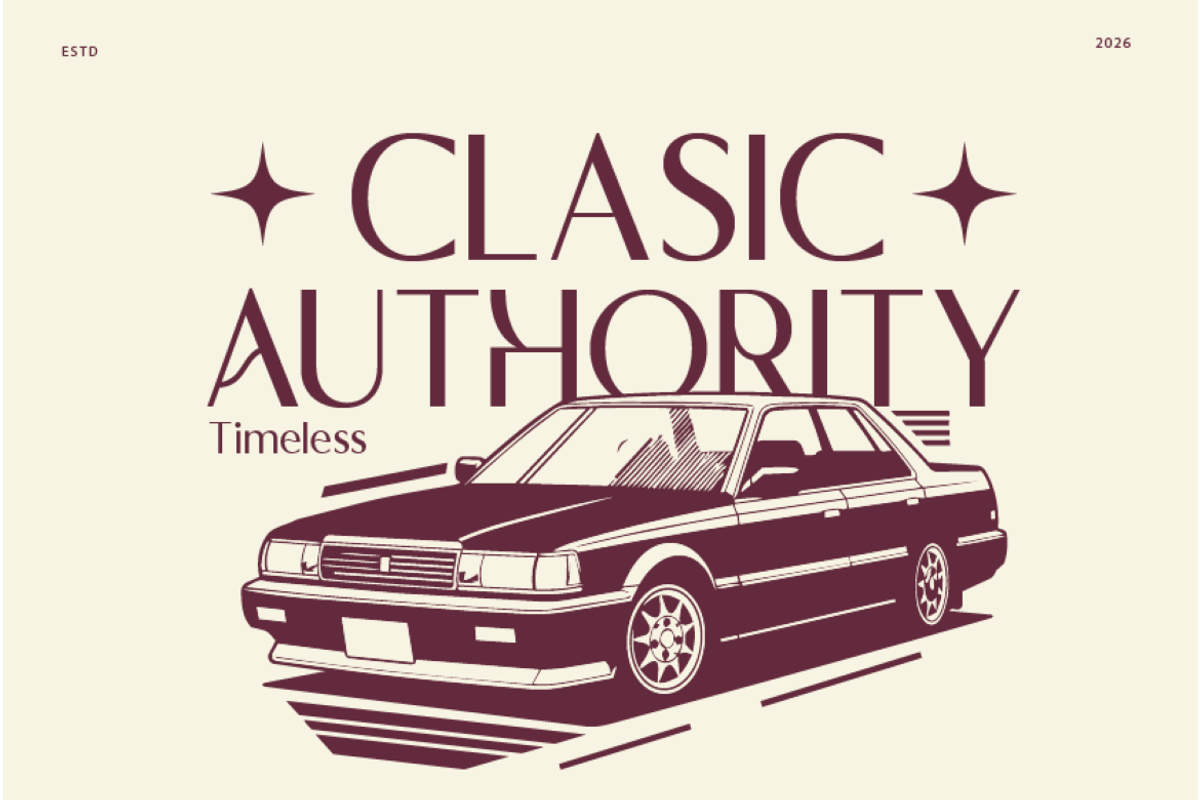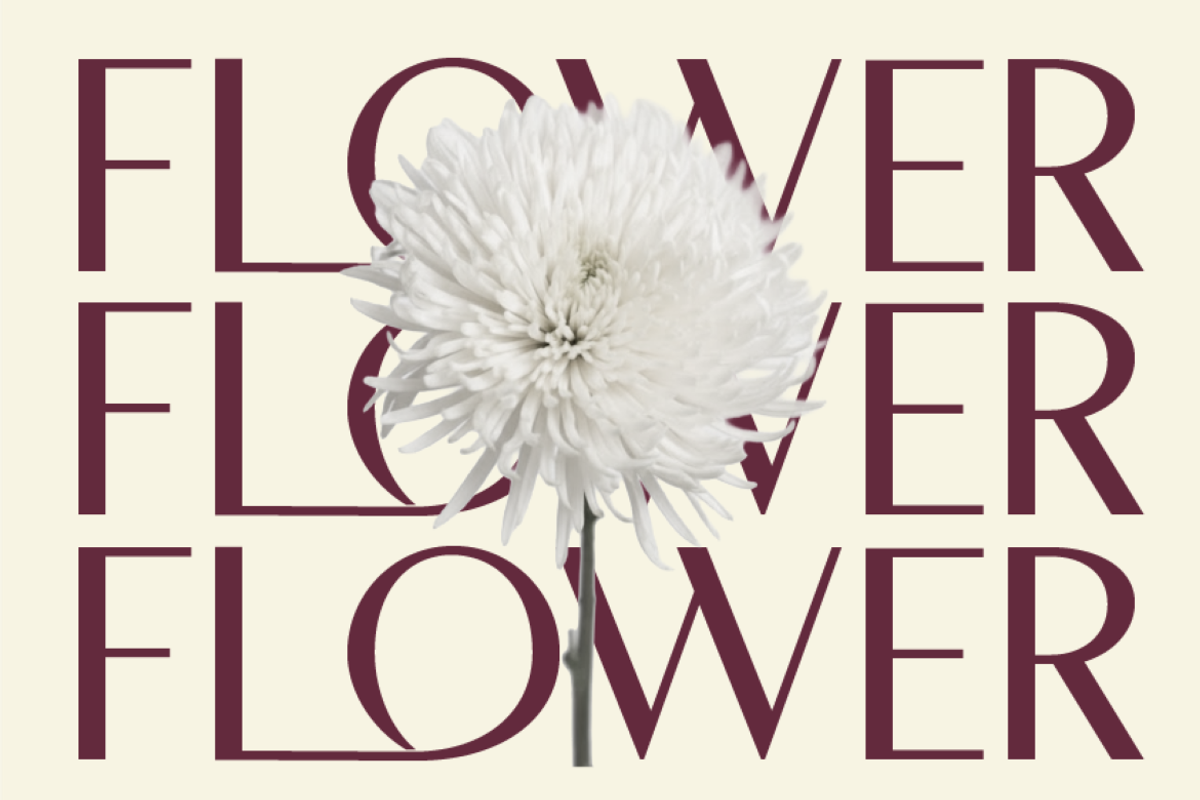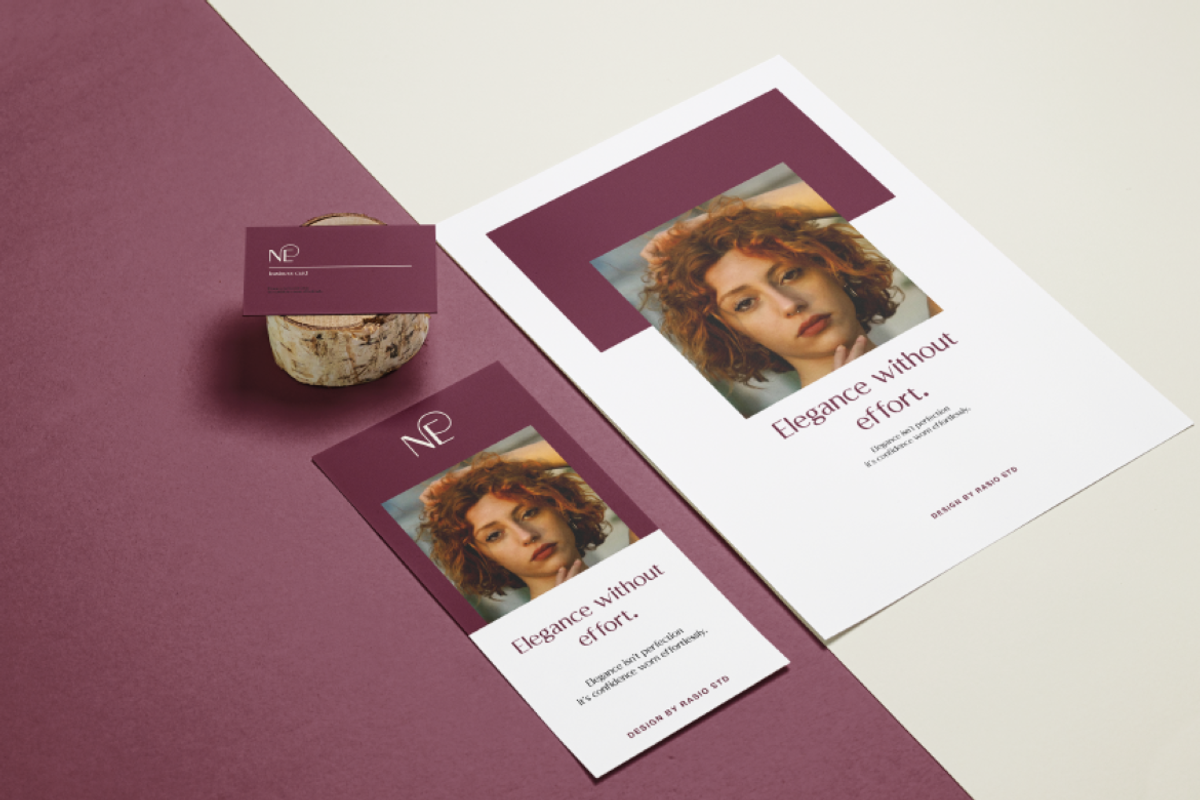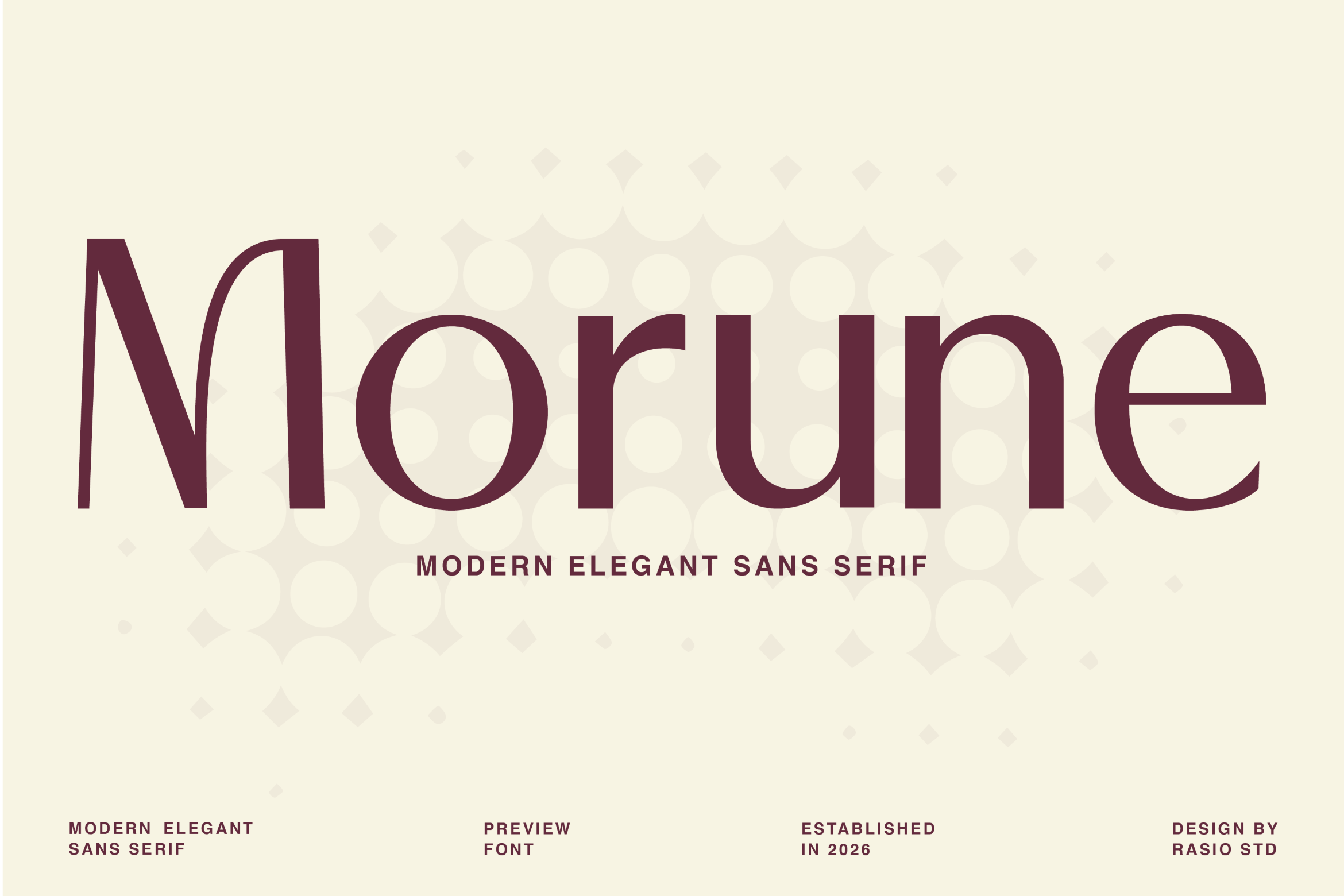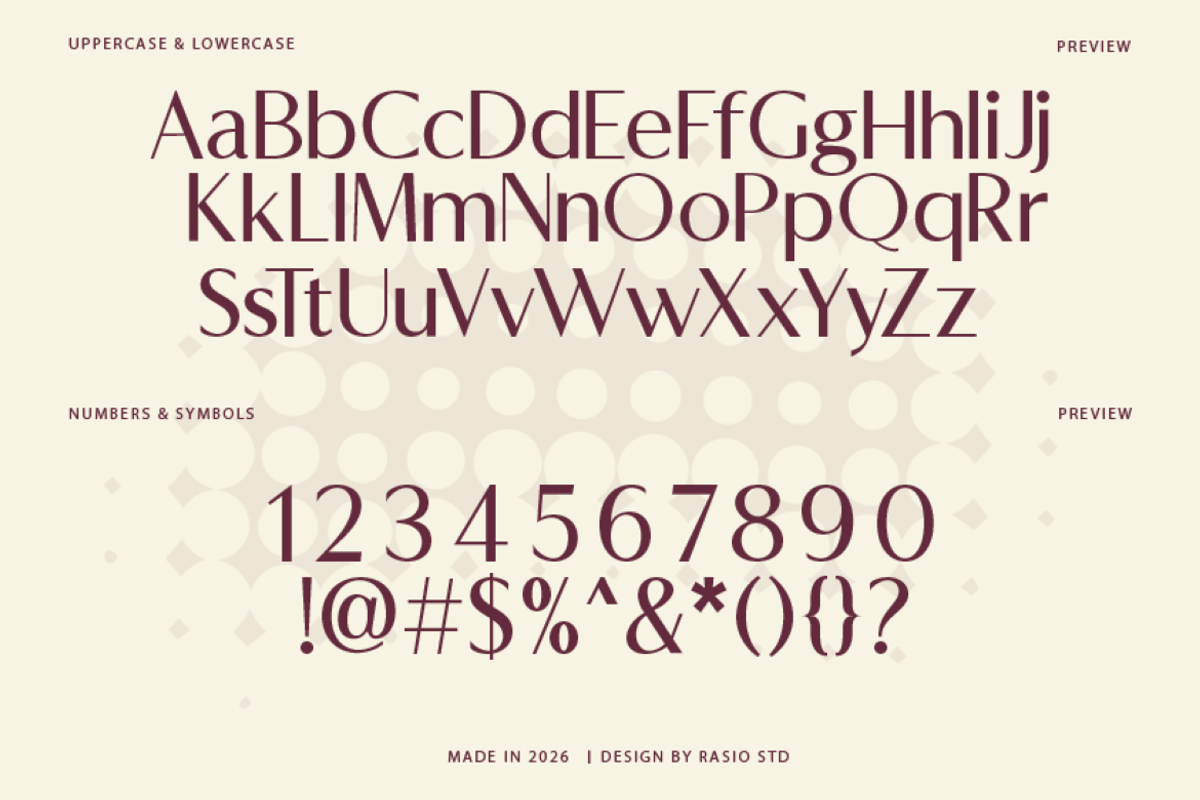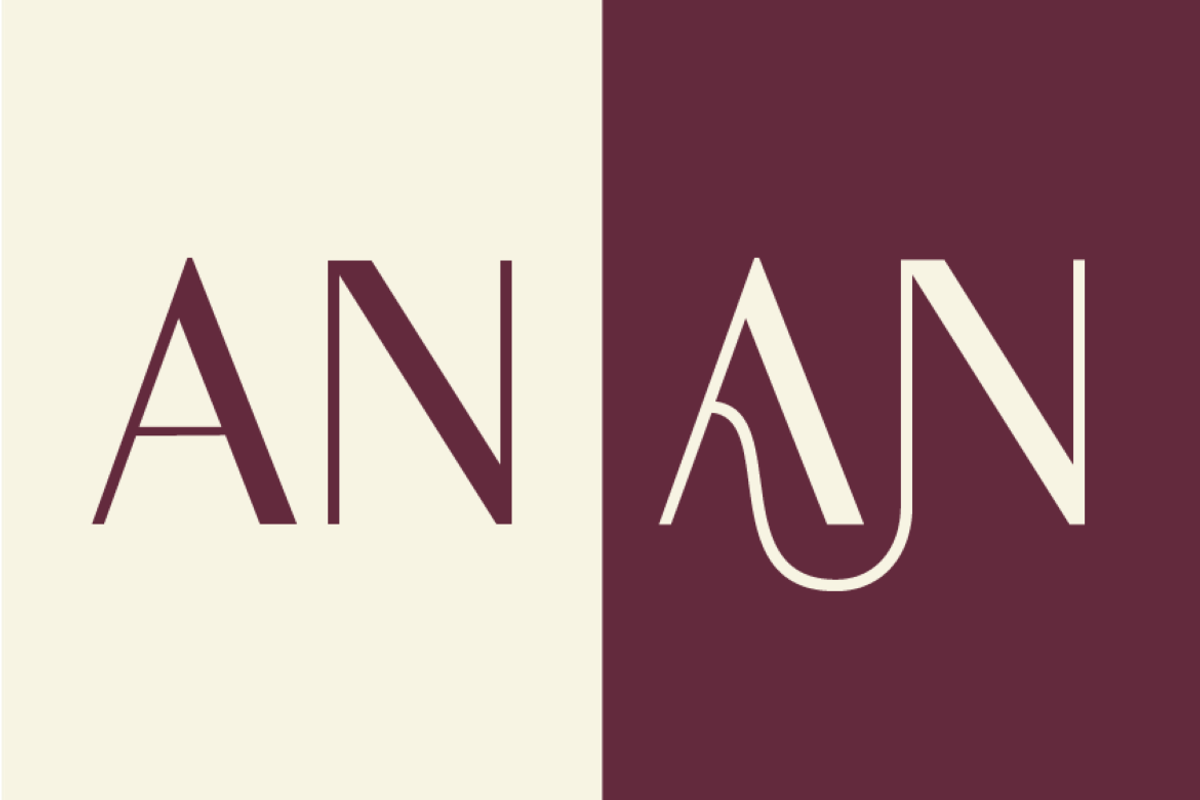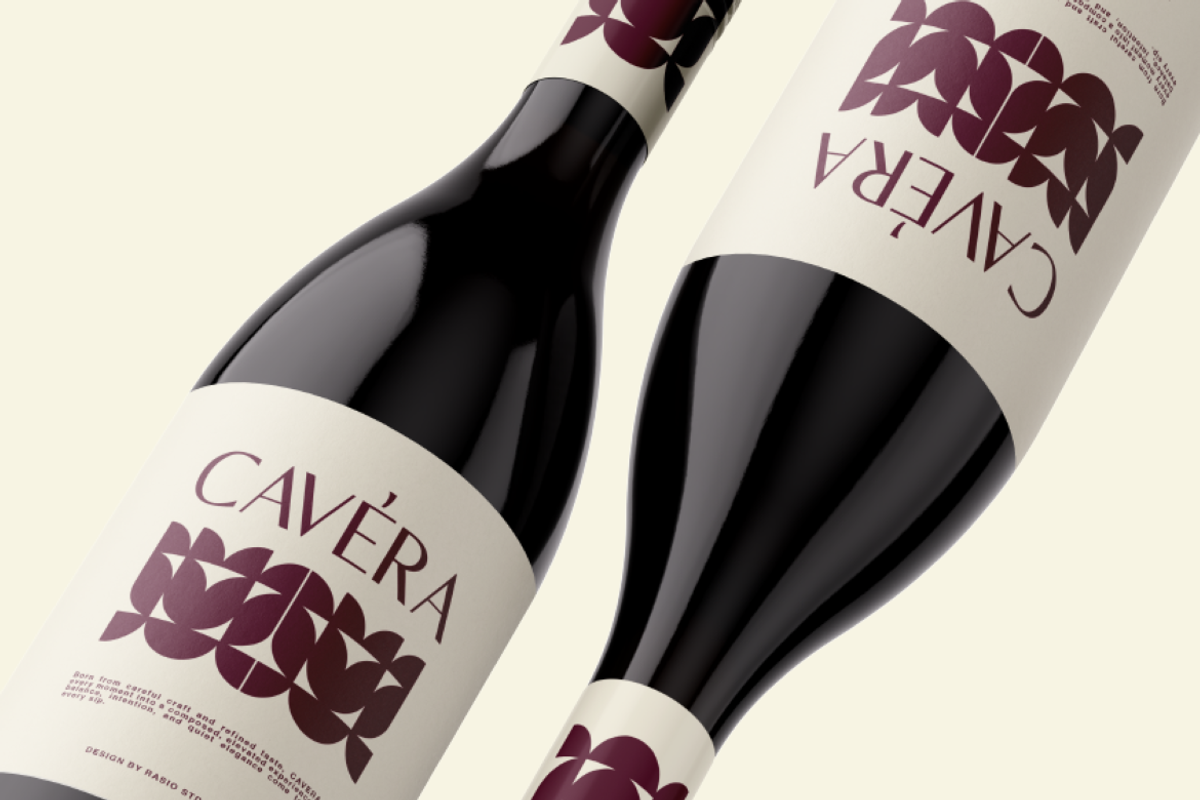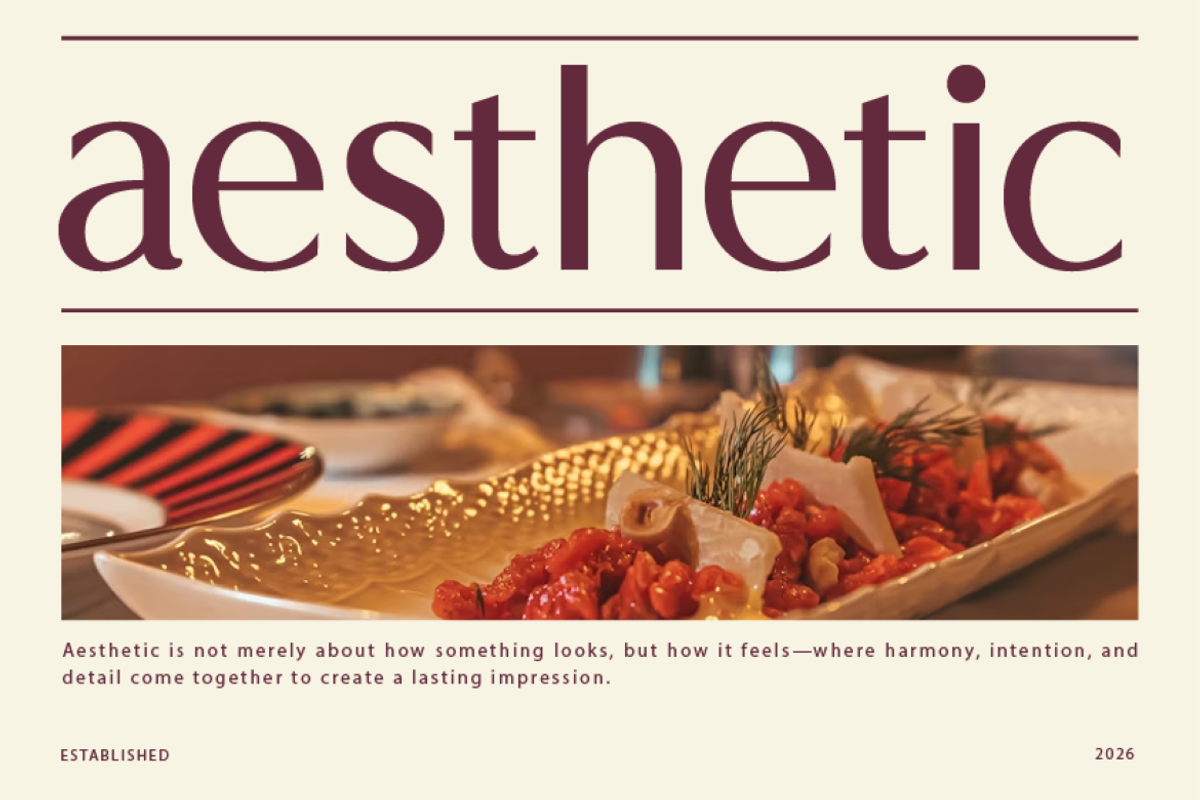
Morune Modern Elegant Sans Font
Morune is a modern elegant sans serif font designed with refined proportions and graceful simplicity. Its letterforms balance clean geometry with subtle organic curves, creating a soft yet confident visual rhythm. Carefully crafted strokes and smooth transitions give Morune a timeless character that feels contemporary without being rigid.
Morune is designed for projects that prioritize elegance, clarity, and modern aesthetics. It works seamlessly in branding systems, editorial layouts, and visual identities where a calm and polished tone is essential. The font adapts effortlessly across print and digital platforms, making it a reliable choice for designers seeking timeless sophistication.
- Clean modern sans serif construction with elegant proportions
- Subtle curved strokes that add softness and visual harmony
- Balanced contrast for a refined and readable appearance
- Smooth terminals and consistent line weight throughout
- Well-spaced characters for comfortable reading and visual flow
- Brand identities that require a refined, elegant, and modern tone
- Editorial layouts such as magazines, books, and lookbooks
- Fashion, beauty, lifestyle, and luxury-oriented branding
- Product packaging and labels with a clean premium feel
- Website typography and UI design needing calm sophistication
Morune delivers modern elegance with a timeless, graceful touch